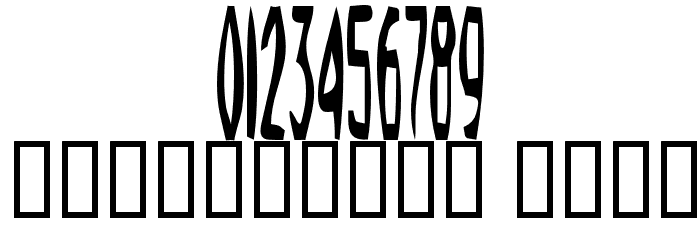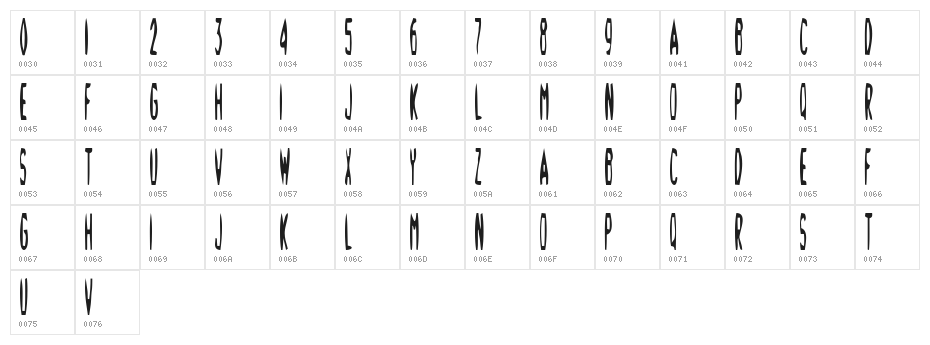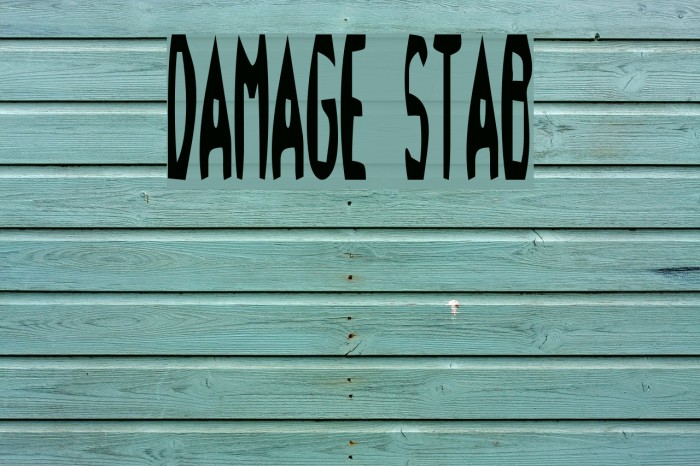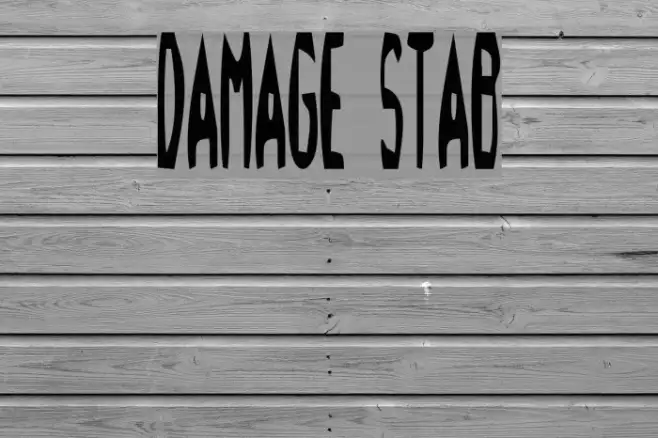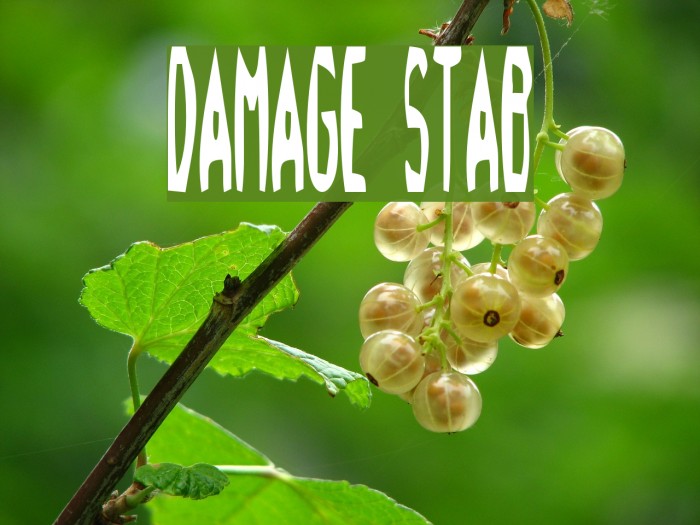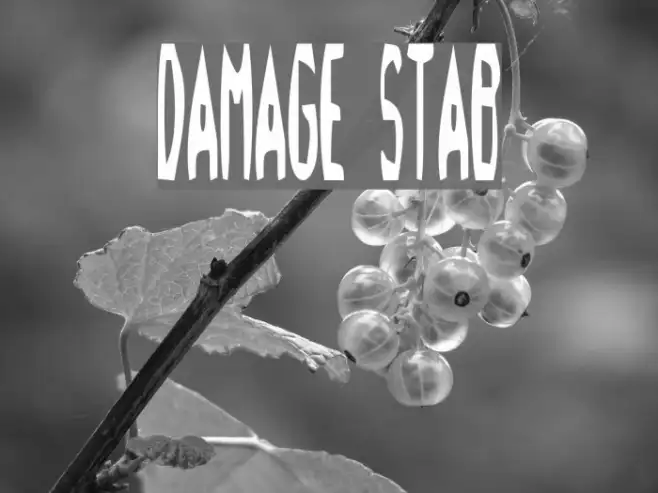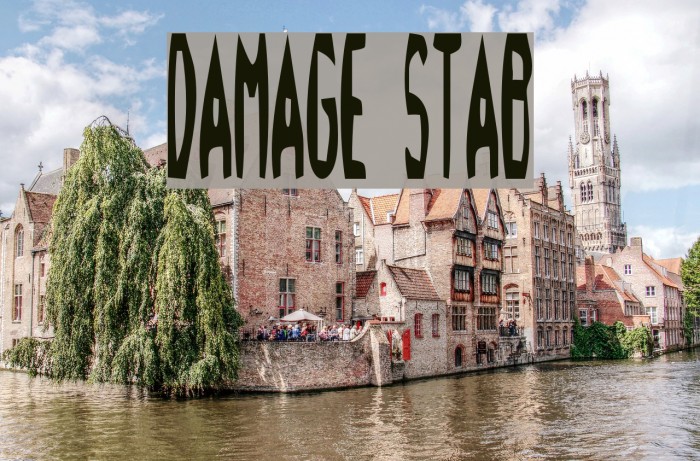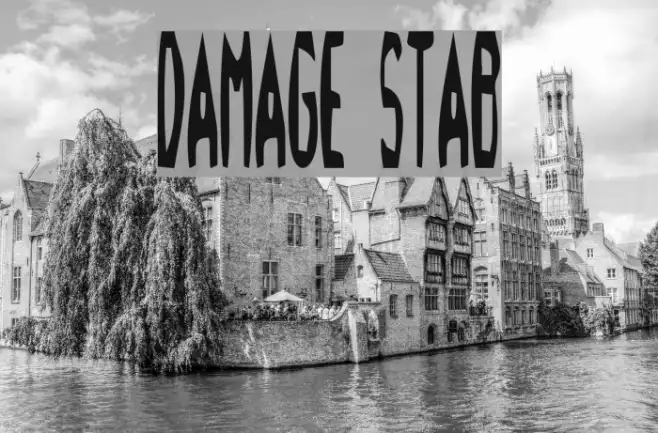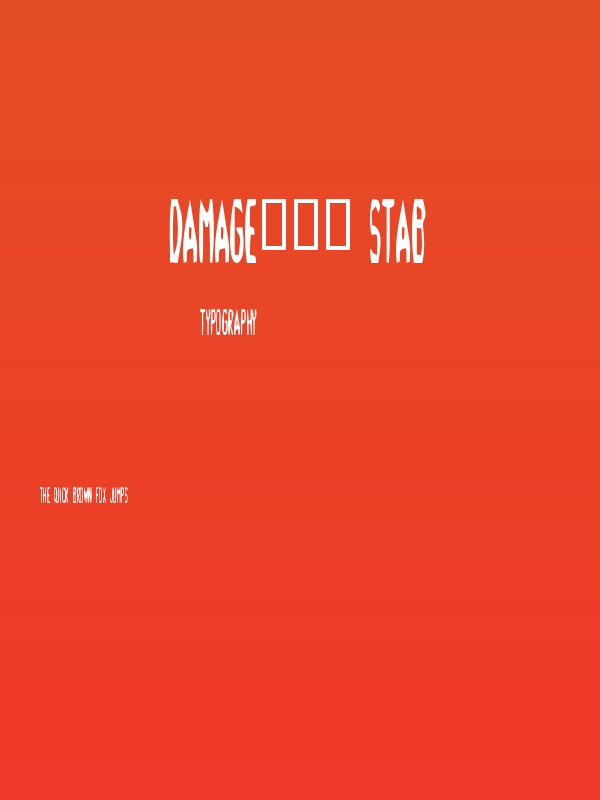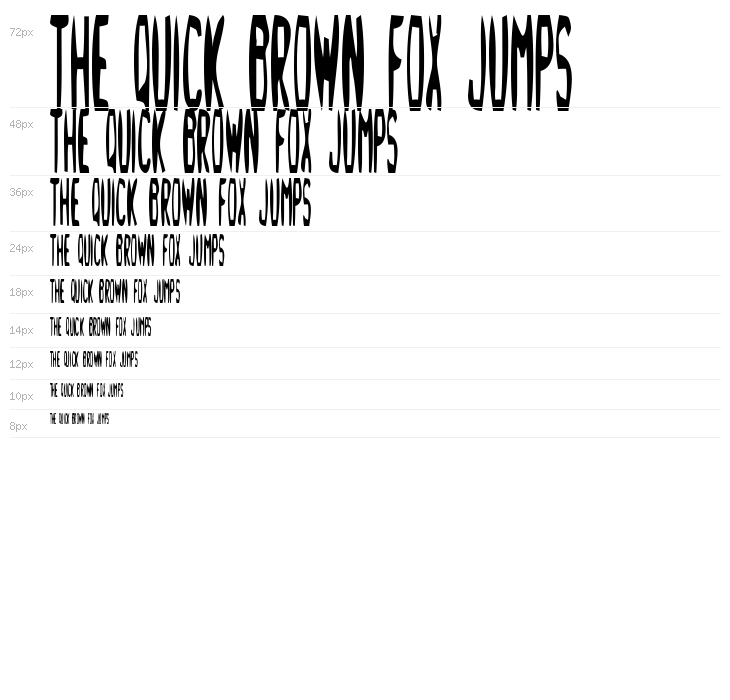
Damage!" Stab Font
Damage!" Stab Description
This font features a highly distinctive and edgy design, characterized by its sharp, jagged edges and irregular forms. The letters appear to be distorted, giving an impression of movement or vibration. This unique style creates a sense of urgency and intensity, making it stand out in any design. The uppercase and lowercase letters maintain a consistent height, while the numbers are slightly more condensed. The font lacks traditional serifs, leaning towards a more modern and experimental aesthetic. The special characters are not clearly defined, adding to the chaotic and unpredictable nature of the design.
| Overall Style | Modern, Edgy |
| Proposed Projects | Ideal for projects that require a bold, attention-grabbing design such as music album covers, posters, or branding for edgy, contemporary brands. |